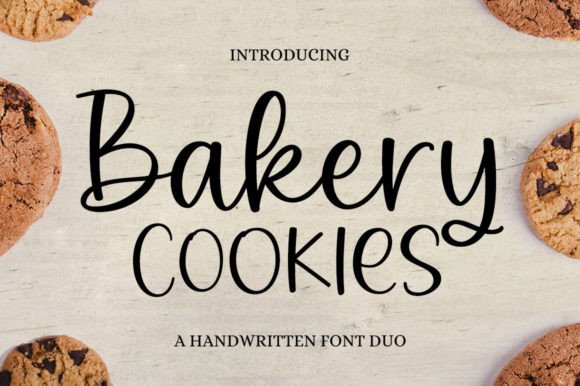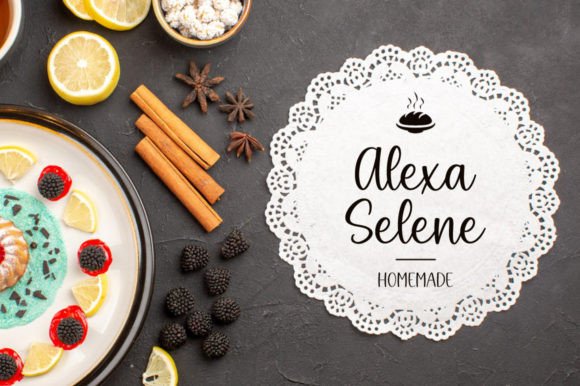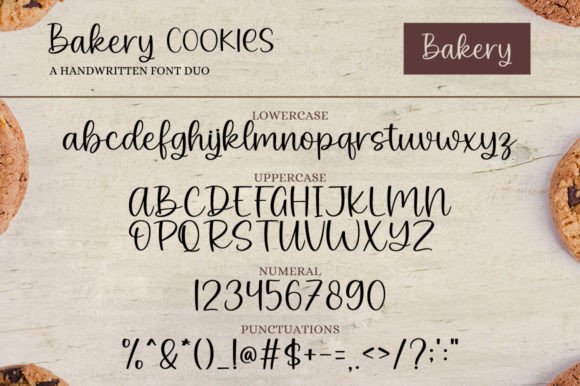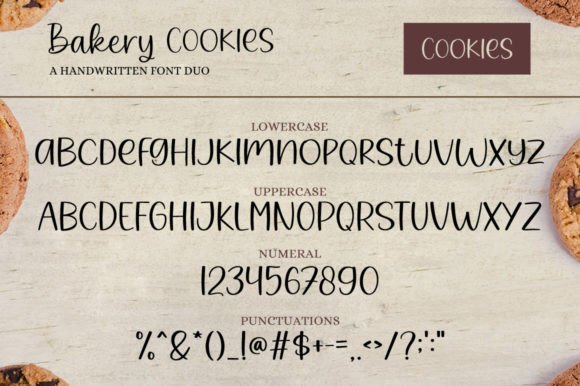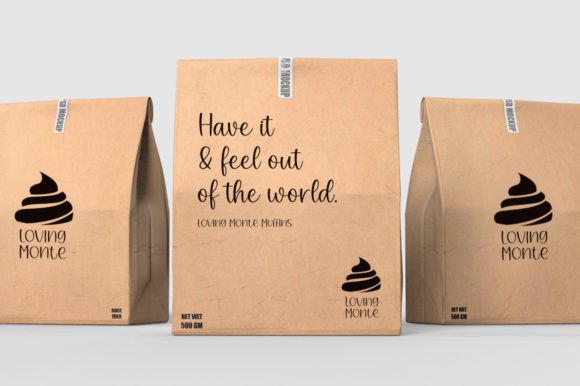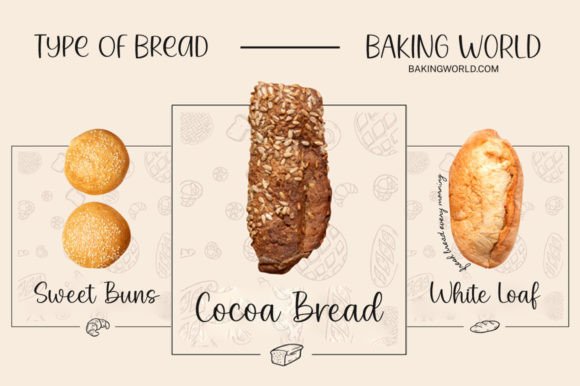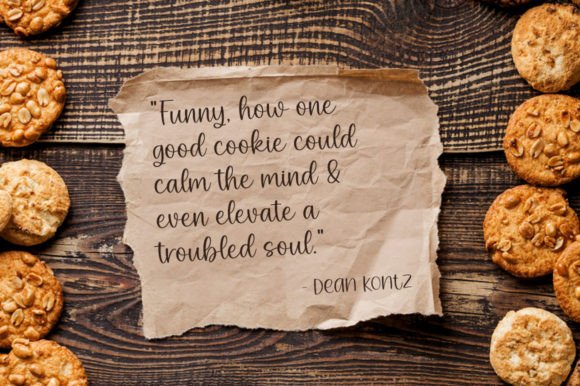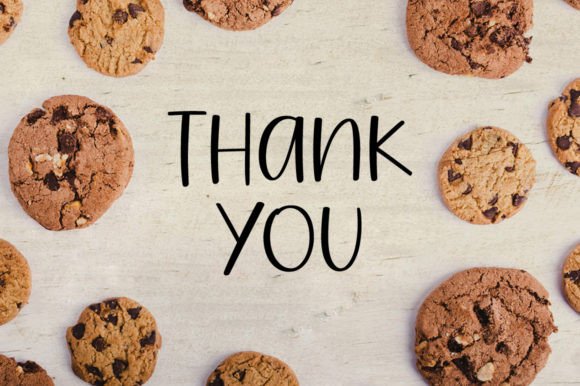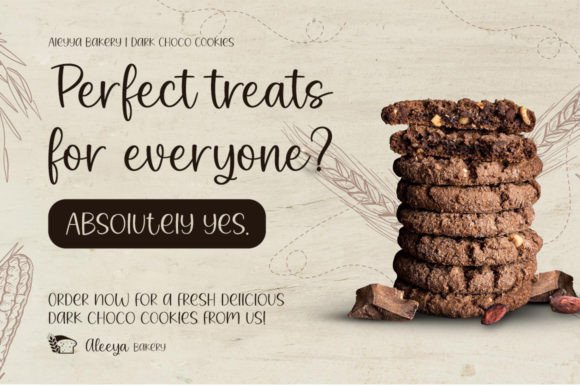
Bakery Cookies Font
About Bakery Cookies Handwritten Font
Bakery Cookies Handwritten Font is a delightful and playful typeface designed to bring a cheerful vibe to your creative work. This font family actually includes two complementary styles that can be used together or separately, giving designers greater flexibility. With smooth strokes and balanced proportions, Bakery Cookies Handwritten Font captures the charm of handwriting while remaining polished and professional. Because of its versatility, it is perfect for invitations, product packaging, posters, branding, and social media projects.
A Playful Typeface with Stylish Appeal
Handwritten fonts often add character and authenticity, and Bakery Cookies Handwritten Font highlights these qualities beautifully. Its curves are light, joyful, and balanced, creating a design that feels casual yet refined. In addition, the dual-font system allows you to mix and match styles to achieve a more dynamic and creative result.
Special moments deserve unique design, and Bakery Cookies HandwrittenFont fits that role perfectly. For example, it enhances wedding invitations, thank-you notes, and menus with cheerful charm. Moreover, it adds a touch of creativity to birthday cards, festive stationery, and seasonal greetings, ensuring every piece feels warm and memorable.
A Script Typeface for Branding and Packaging
Businesses and designers can benefit from Bakery Cookies HandwrittenFont for branding projects. It works beautifully on boutique logos, product packaging, and food labels. Furthermore, it adapts easily to promotional designs, magazine layouts, and advertising campaigns. When paired with clean sans serif fonts, it produces a modern, professional look that resonates with audiences.
Flexible Across Print and Digital Media
Another advantage of Bakery Cookies HandwrittenFont is its adaptability across mediums. In print, it looks stunning on posters, brochures, and merchandise. Digitally, it integrates smoothly into blogs, websites, and online stores. Since it scales well from small icons to large banners, it ensures clarity and consistency across all formats.